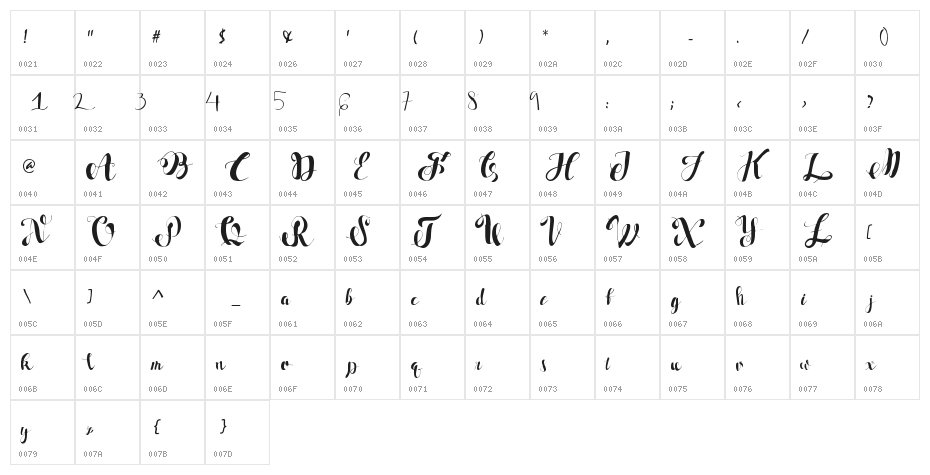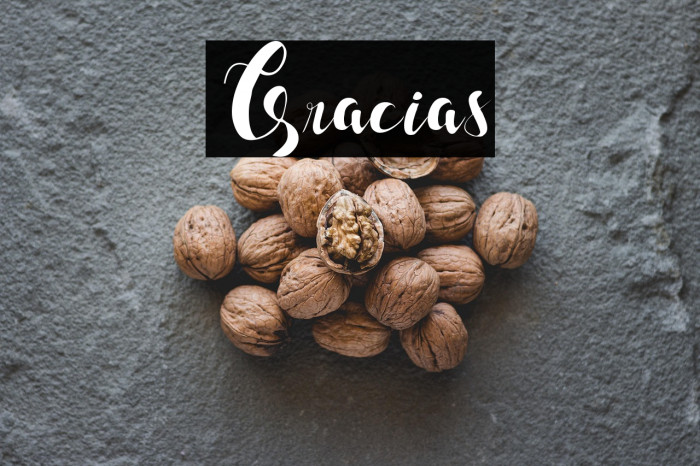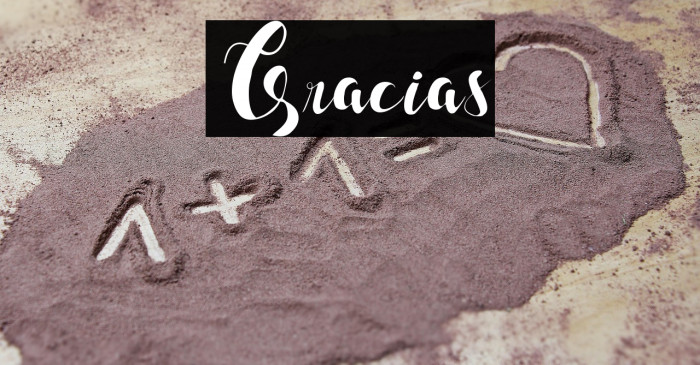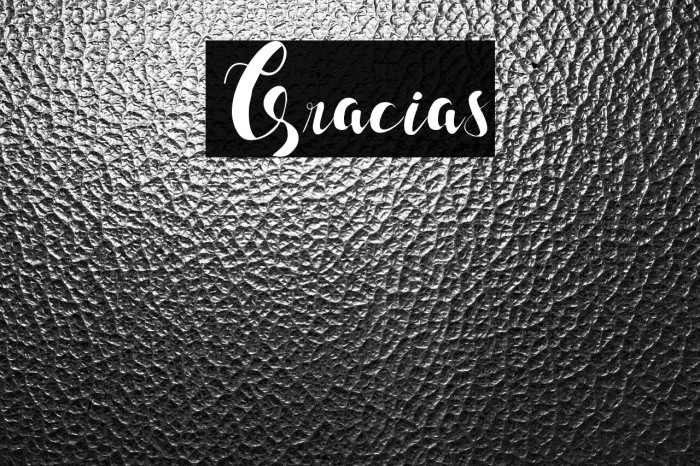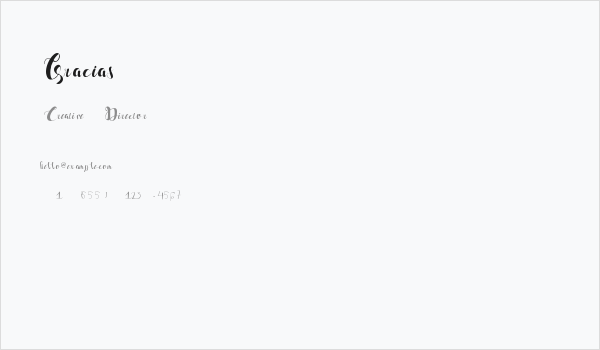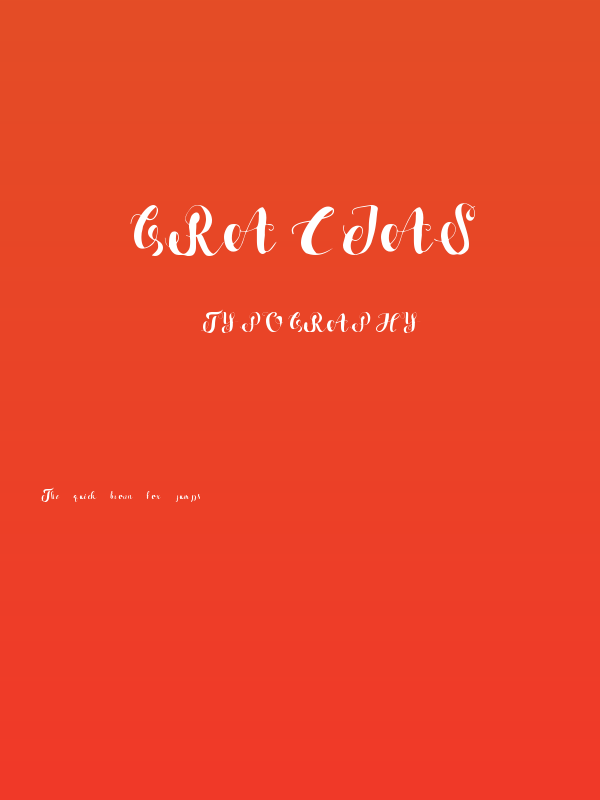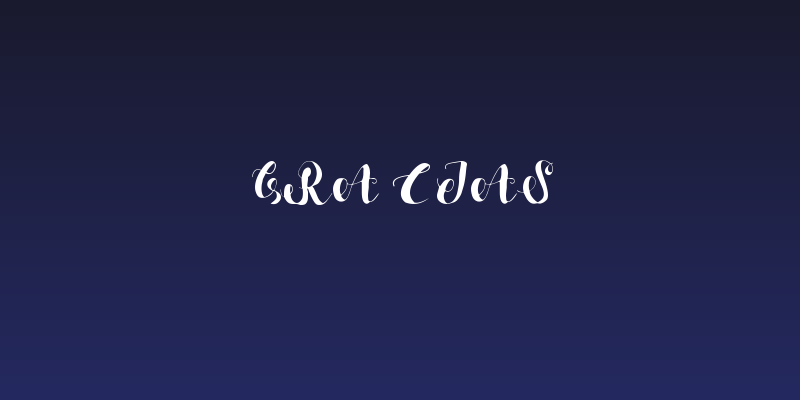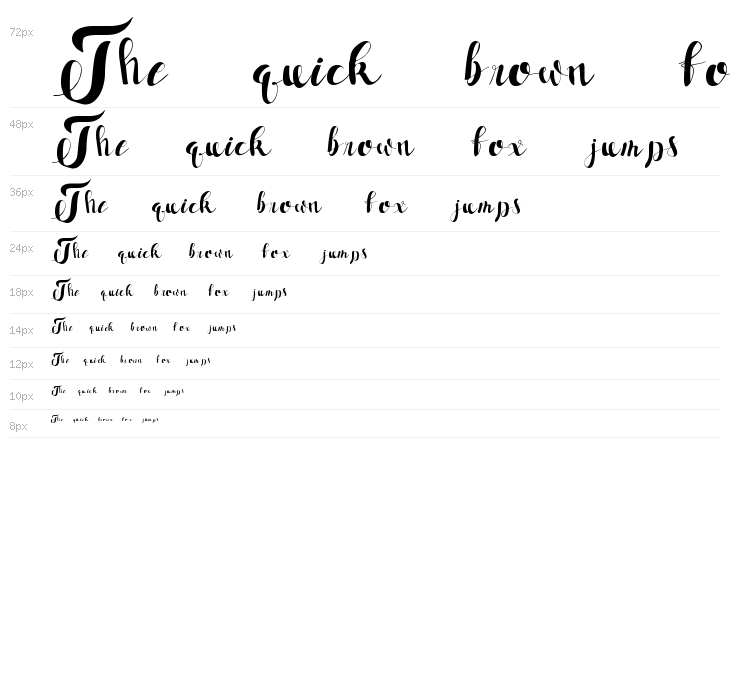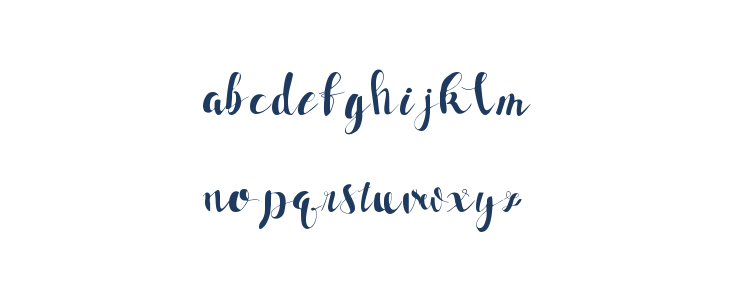
Gracias Font
Gracias Description
This font exudes elegance and sophistication with its flowing, cursive style. Each letter is intricately designed with delicate swirls and loops, giving it a hand-drawn, calligraphic appearance. The uppercase letters are particularly ornate, featuring elaborate flourishes that extend beyond the baseline and cap height. The lowercase letters maintain a consistent style, with smooth curves and a slightly slanted orientation. The numbers and special characters are equally stylized, ensuring a cohesive look across all glyphs. This font is perfect for projects that require a touch of luxury and refinement.